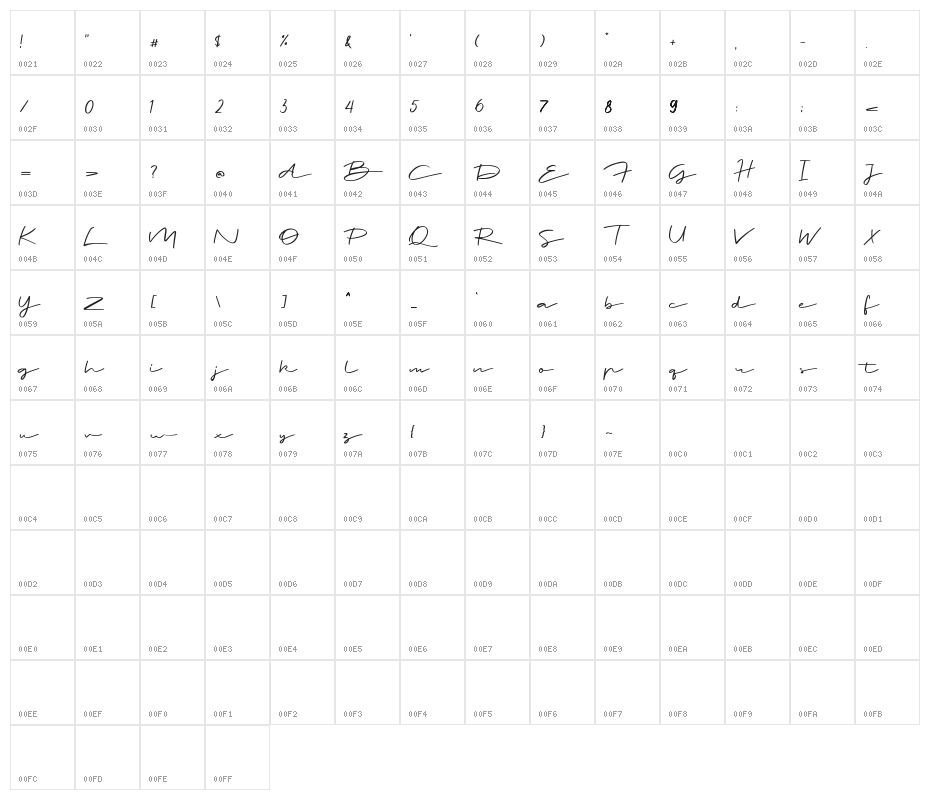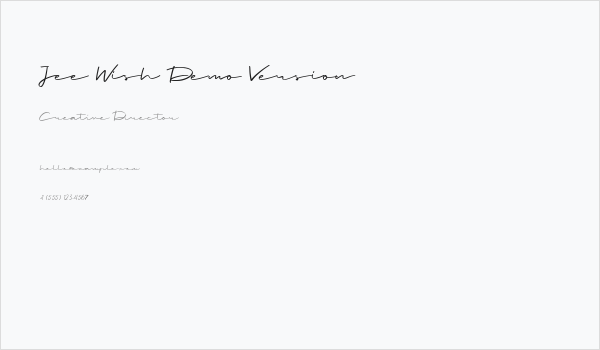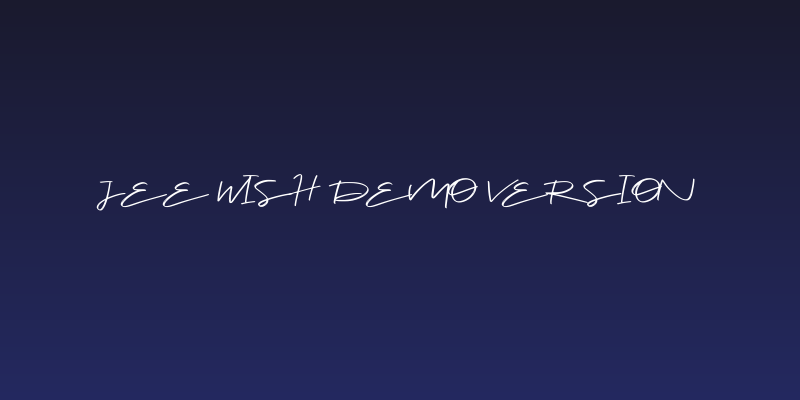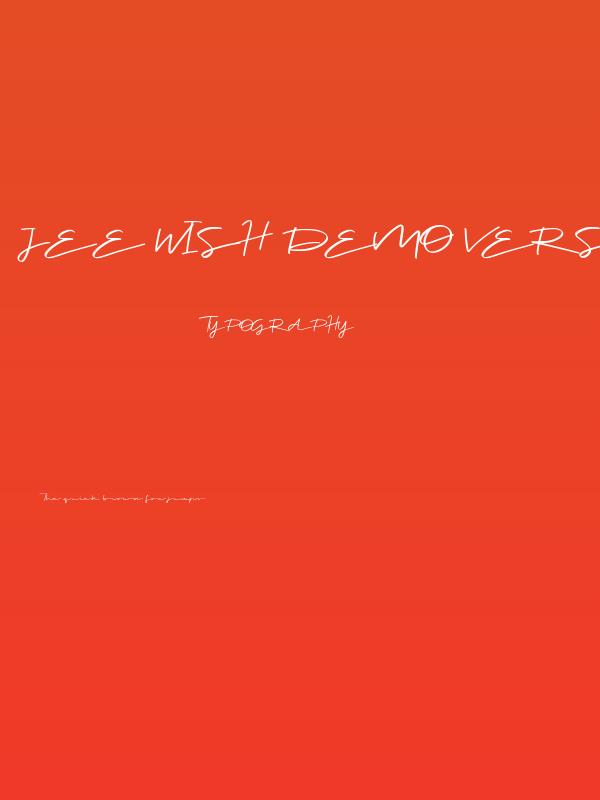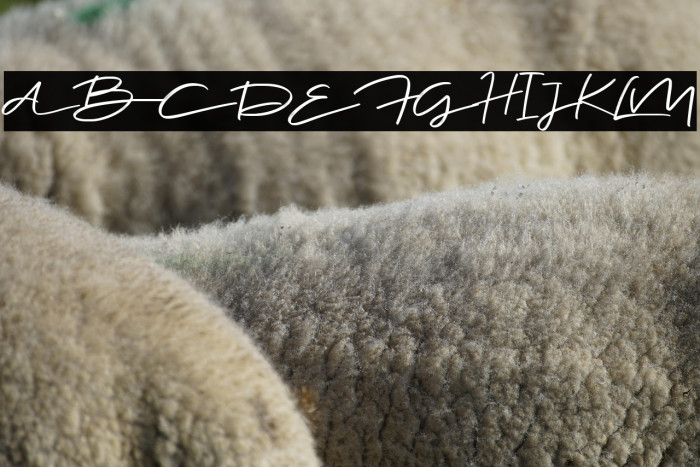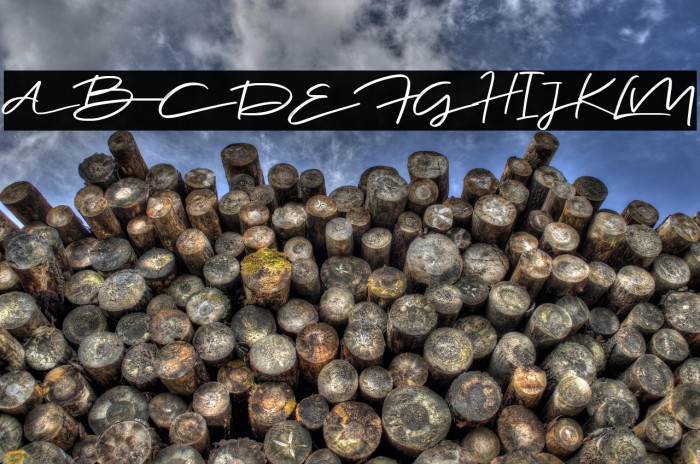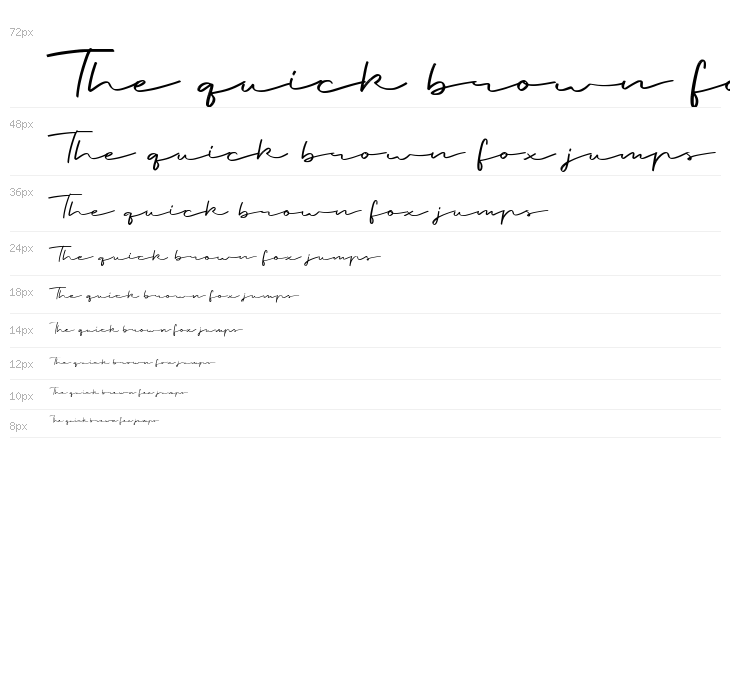
Jee Wish Demo Version Font
Jee Wish Demo Version Description
This font exhibits a fluid, handwritten style with a modern twist. The characters are connected in a cursive manner, giving it a seamless and elegant appearance. The uppercase letters are bold and slightly slanted, while the lowercase letters maintain a consistent flow with a more delicate touch. Numbers and special characters follow the same cursive style, ensuring uniformity across all elements. The overall design is sophisticated yet approachable, making it suitable for a variety of creative applications.
| Proposed Projects | Ideal for wedding invitations, personal branding, greeting cards, and artistic projects. |